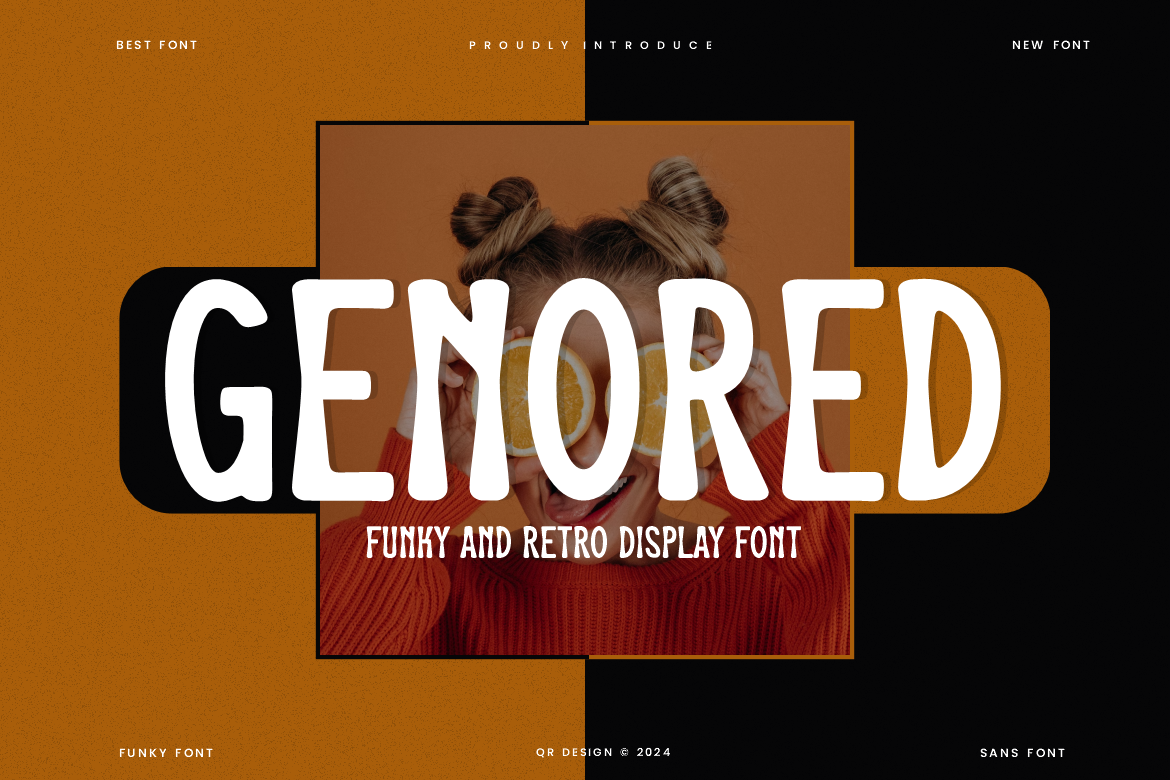
Genored - Groovy & Funky Font
Genored - Groovy & Funky Font is a bold and authentic display font. The font is suitable for any branding project like poster, logo, sport, and many more. Outstanding in a wide range of contexts.